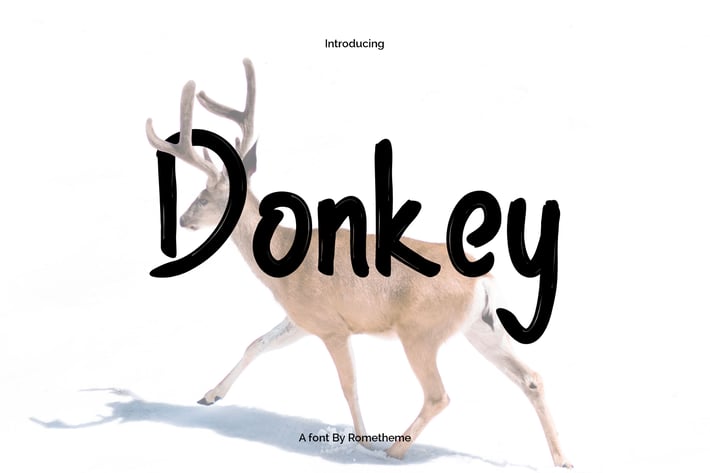
Donkey - Display Font
Donkey is a handmade display font, this font looks funny, cute, kids, cartoon, playful, catchy and easy to use.
Donkey Font is the best choice for your professional design projects, including : logo, poster design, t-shirt, headline, flyer, cd cover album, quotes, business card, branding, magazines, social media, advertisements, product designs, or something that need modern or futuristic looks.